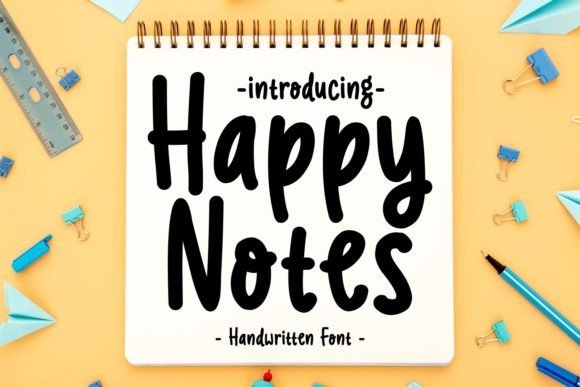
Introduction to Happy Notes Font
Happy Notes is a handwritten font full of positivity and character.
A friendly hand-lettered typeface with charm and style This font is perfect for quotes, headings, logos, branding, merchandise, and websites.
Key Features of Happy Notes Font